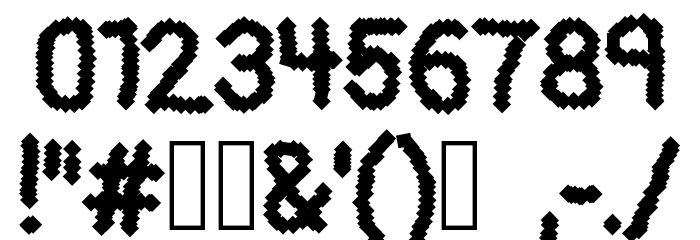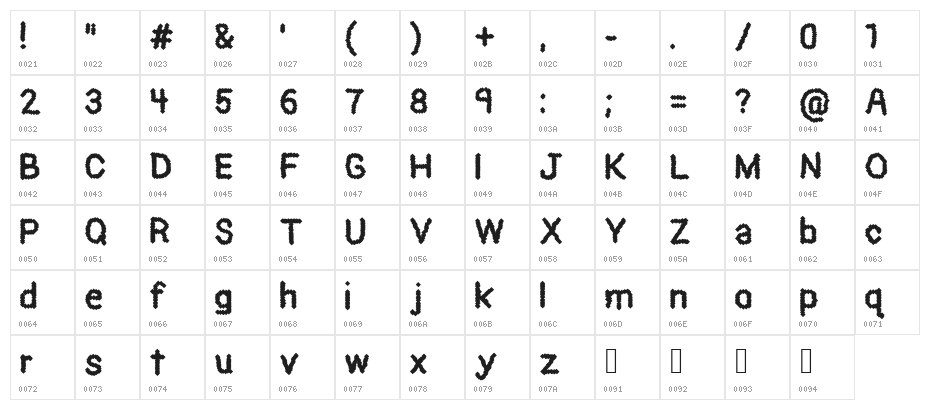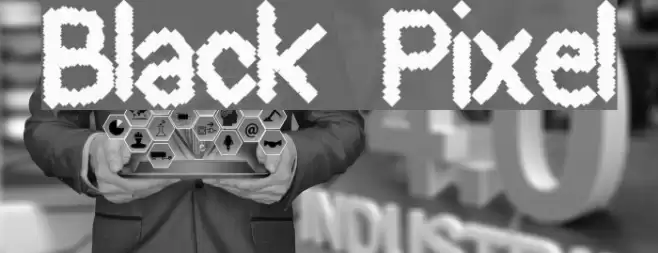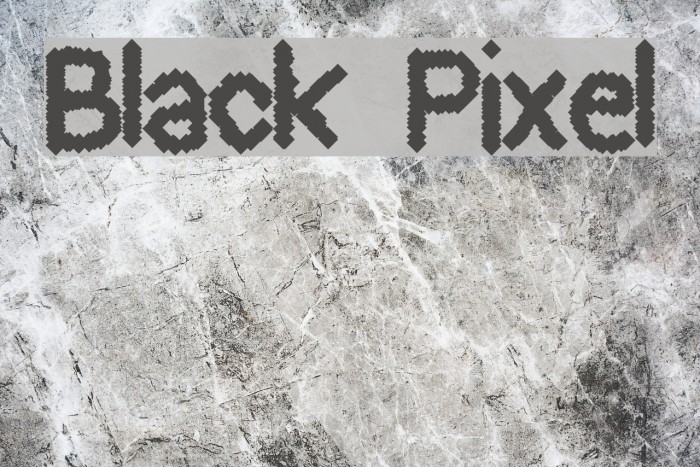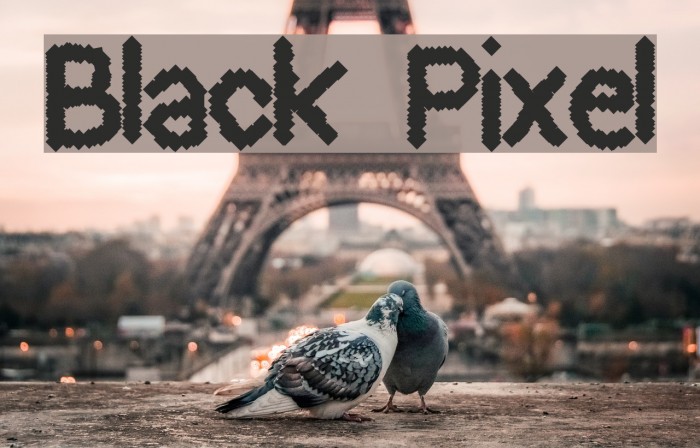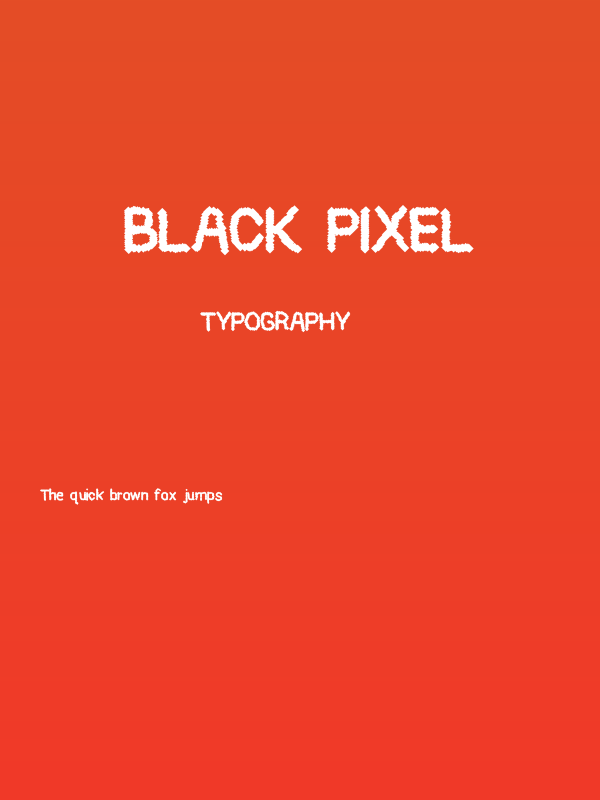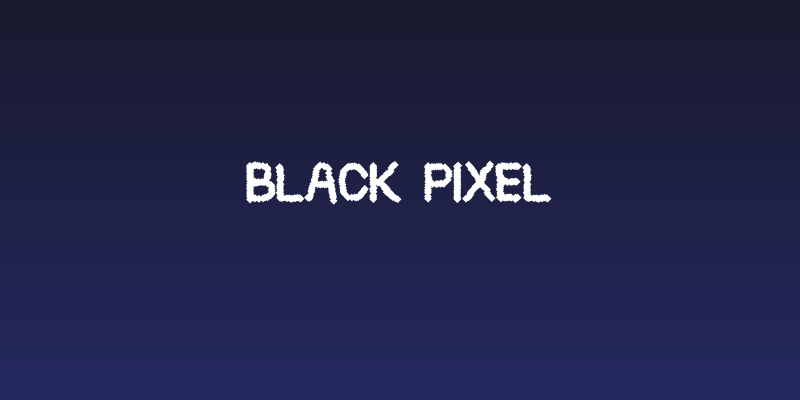
Black Pixel Font
Black Pixel Description
This font features a unique pixelated design, reminiscent of early digital displays and retro video games. Each character is composed of small, square-like shapes that give it a jagged, textured appearance. The uppercase and lowercase letters maintain a consistent style, with bold, thick lines that ensure readability despite the unconventional form. Numbers and special characters are similarly styled, providing a cohesive look across all elements. The font's distinct pixelated aesthetic makes it stand out, offering a nostalgic feel that is both playful and eye-catching.